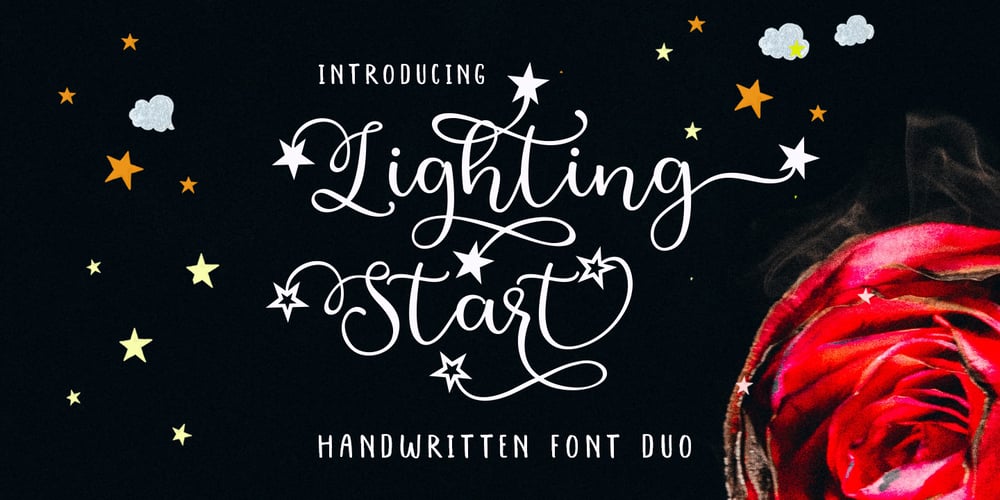
Lighting Start 1 Font Family was designed by Nasrullah and published by Sulthan Studio. Lighting Start 1 contains 3 styles and family package options. a beautiful, hand-drawn duo of fonts with swashed ends featuring a half full star on Script 1 and full star on Script 2 as as a sans on Script 3 that creates a casual yet stylish combination. This font would be suitable for logos, branding projects, homeware designs, product packaging, mugs, quotes, posters, shopping bags, logos, t-shirts, book covers, business cards, invitation cards, congratulations. cards, and all your other beautiful projects